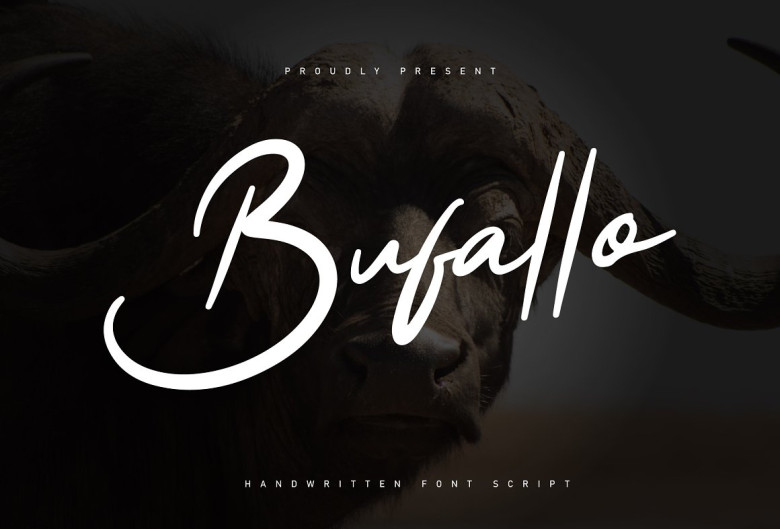
Bufallo Font
Bufallo is a style of handwritten script. With a simple hand stroke that makes this font look simple. It can be used for various purposes. such as, greeting cards, business designs, product designs, quotes etc.
Bufallo Handwritten Font